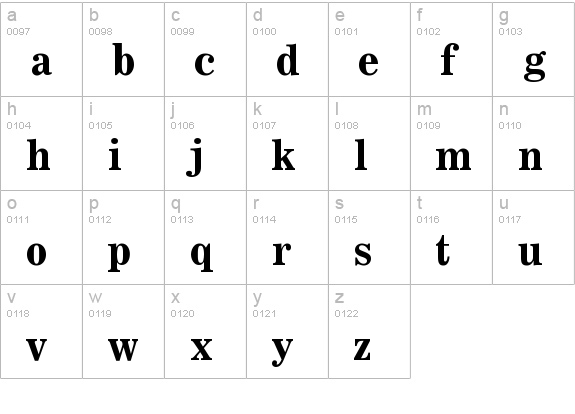
Lockup SSi Bold Font Details
Lockup SSi Bold is a strong, high-contrast variant in the Lockup typeface family \xE2\x80\x94 well suited to headlines, attention-grabbing titles, and strong calls-to-action.